Brownfox
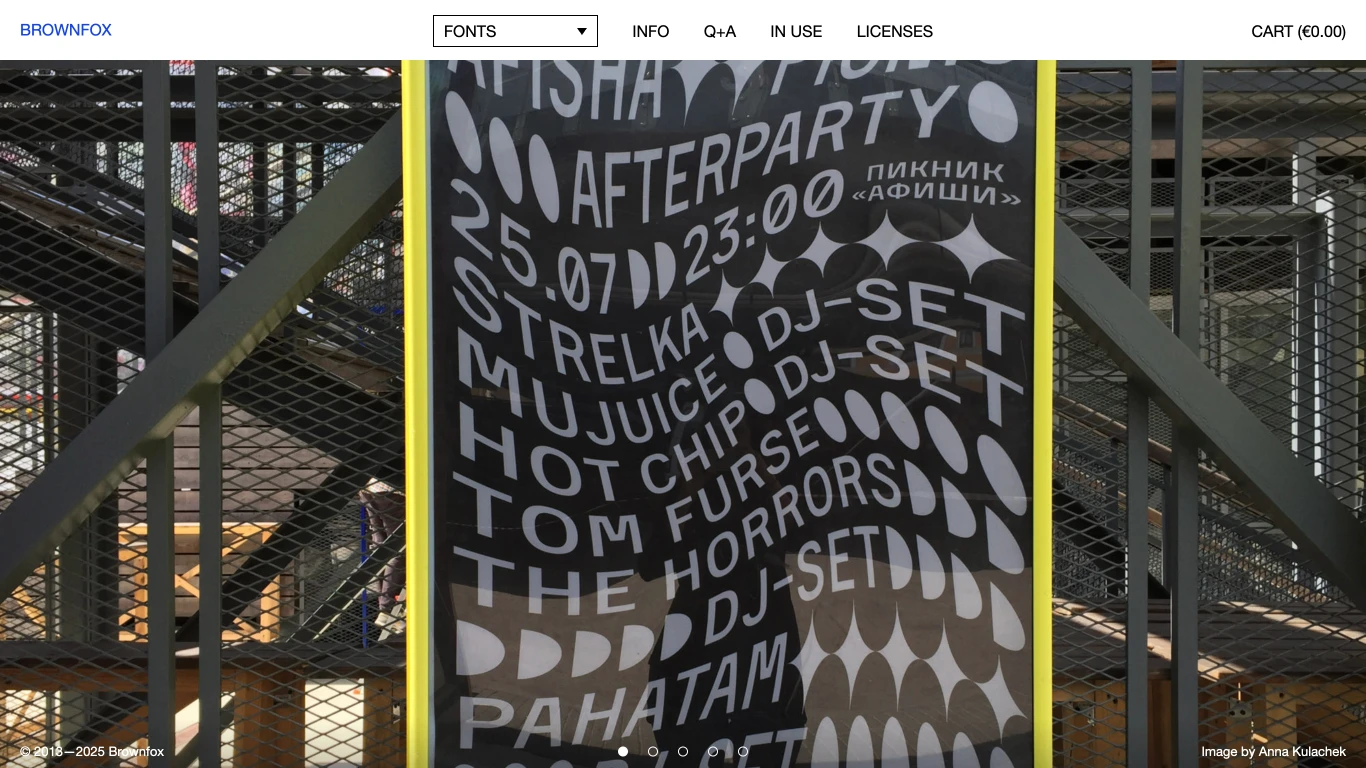
Germany
2012
Brownfox is an independent type foundry based in Moscow, Russia, specializing in the design and production of Latin and Cyrillic fonts for both print and screen applications. Founded in 2012 by Gayaneh Bagdasaryan, the foundry offers a fresh perspective on typography, combining typographic tradition with contemporary design. Notable typefaces include 'Geometria', 'Brutal Type', and 'Wermut'.